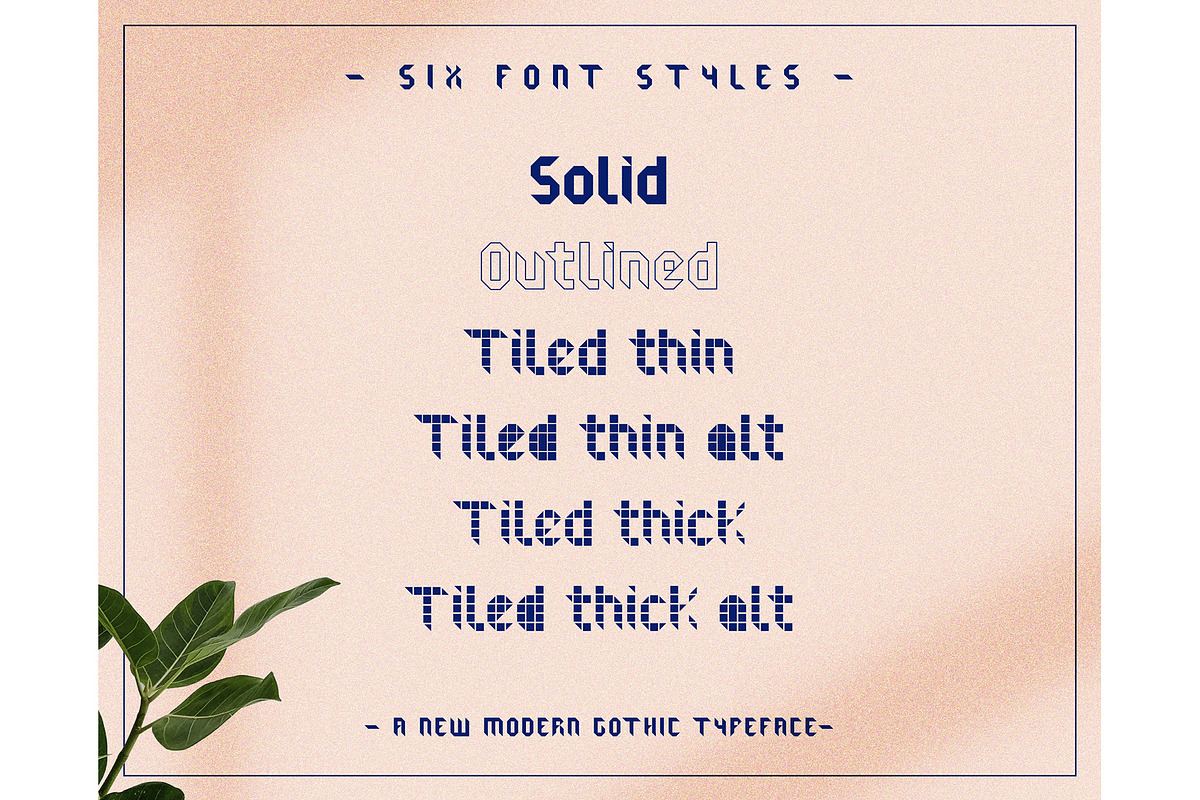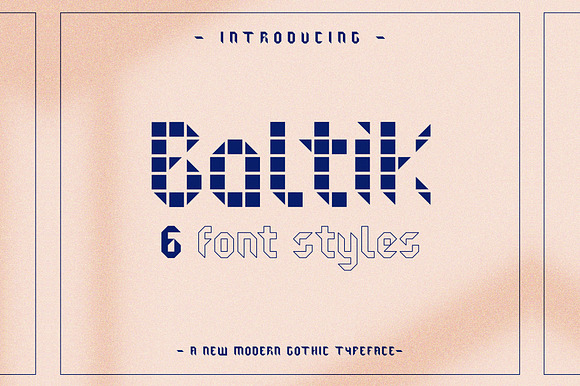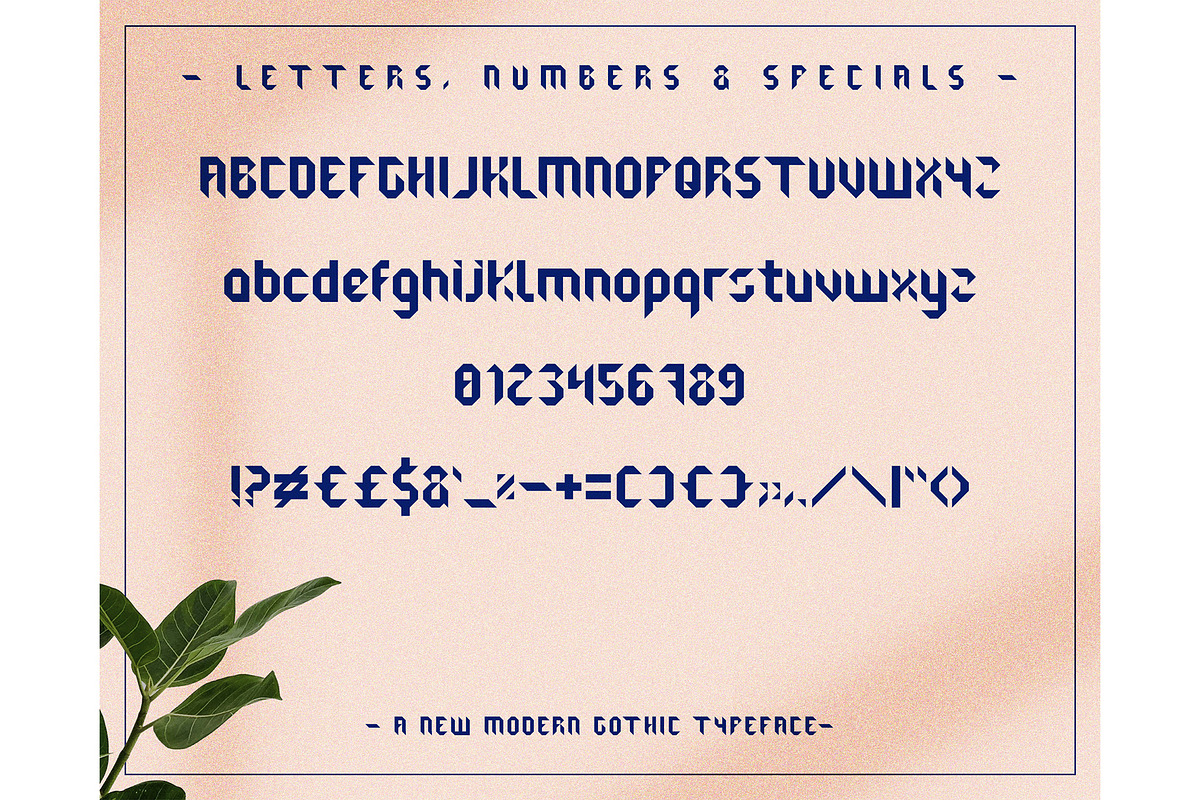
Baltik typeface - six fonts included
Baltik is a modern gothic inspired font, that works well for titles, headlines, and large texts in general.
Baltik comes in six styles making the font versatile and useful both for web and print; think websites, posters, menus, logotypes, cards, signage, packaging and whatnot.
Glyphs included: Letters from A to Z, numbers from 0 to 9, and a few other punctuation glyphs (see pictures for a preview of all the glyphs).
- Fonts are in uppercase/all caps and lowercase.
- Baltik Tiled Thin
- Baltik Tiled Thin Alt
- Baltik Regular
- Baltik Outline
- Baltik Tiled Thick
- Baltik Tiled Thick Alt